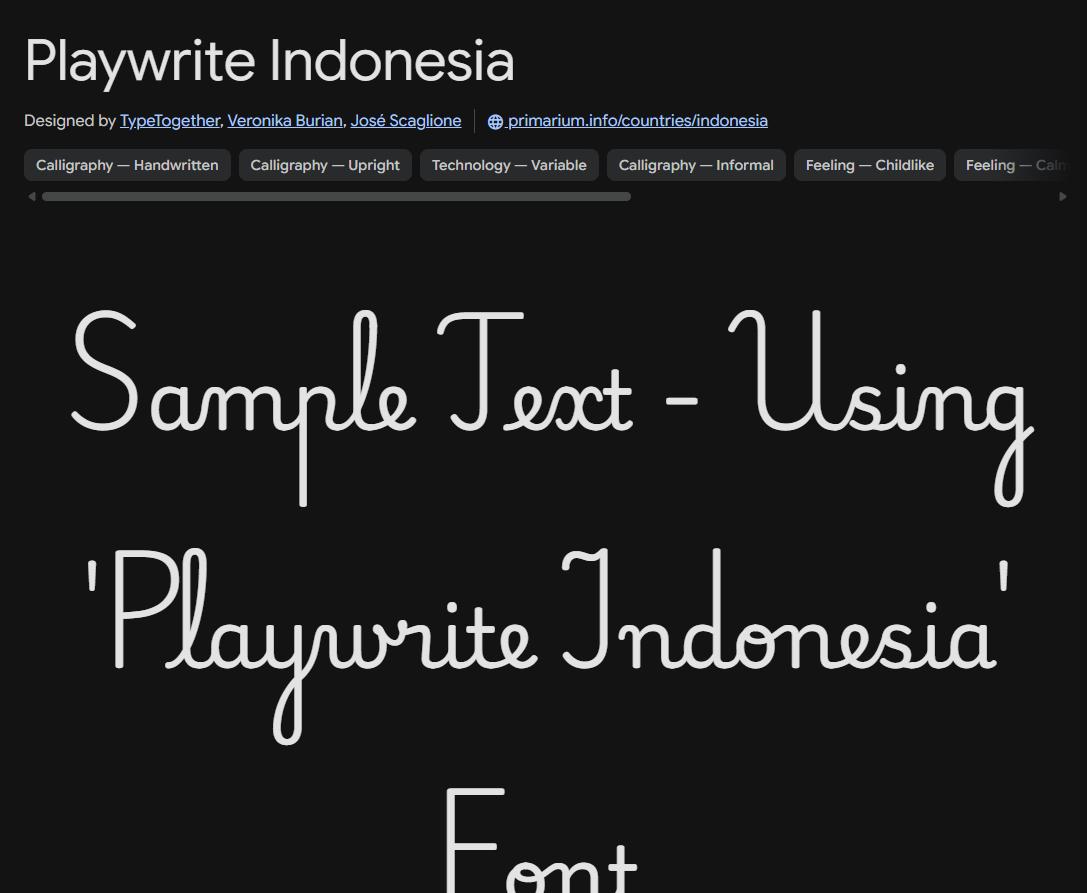
Engineered by the collaborative expertise of Veronika Burian and José Scaglione at TypeTogether, Playwrite Indonesia functions as a sophisticated pedagogical tool that translates regional handwriting models into a dynamic digital environment through a single-axis variable font architecture. This typeface leverages precise interpolation to maintain structural integrity across its stylistic range, ensuring that the idiosyncratic ligatures and humanist strokes characteristic of Indonesian primary education remain legible and authentic. By integrating advanced OpenType features with a streamlined axis for weight modulation, the design facilitates a seamless transition from manual script acquisition to high-resolution screen rendering, setting a technical benchmark for localized educational typography within the global type foundry landscape.
The Playwrite Indonesia font family represents a sophisticated intersection of pedagogical engineering and digital type design, utilizing Variable technology to bridge the gap between structured Upright Calligraphy and fluidly Handwritten expression. Engineered to align with specific regional educational standards, this Informal Calligraphy typeface achieves a unique semantic balance; its glyphs evoke a Calm, Happy, and Playful energy that remains inherently Childlike yet technically robust. By leveraging a dynamic OpenType framework, the font transitions seamlessly from a Loud and Rugged display presence to a more restrained, Vintage aesthetic, effectively digitizing the traditional ductus of Indonesian penmanship while maintaining a versatile, Upright posture suitable for modern educational interfaces.
While Playwrite Indonesia captures the specific pedagogical ductus of Indonesian primary education through its fluid stroke modulation and rhythmic cursive joins, it is fundamentally unsuitable for high-precision environments such as aeronautical instrumentation, clinical pathology reporting, or high-frequency trading interfaces. The typeface's variable axis, though offering stylistic flexibility, cannot mitigate the inherent legibility hurdles posed by its connected script architecture when subjected to rapid-fire optical recognition or low-resolution rasterization in dense data hierarchies. In sectors requiring the sterile, institutional gravity of a neo-grotesque, the subjective personality of TypeTogether's handwriting model introduces unnecessary cognitive friction, potentially obscuring critical numeric values or legal terminology that demands the absolute character isolation of a humanist or geometric sans-serif for optimal accessibility compliance.
Playwrite Indonesia is a school-based cursive typeface designed to mimic the specific handwriting styles taught within the Indonesian educational system. The typeface adheres to the Playwrite project's modular design framework, utilizing localized letterforms that prioritize join logic and fluid stroke consistency across varying glyph widths.
This font is generally not recommended for extensive body text as its cursive nature can lead to reader fatigue during prolonged engagement. From a legibility perspective, the high frequency of complex ligatures and rhythmic vertical fluctuations can significantly increase the cognitive load compared to traditional humanist sans-serifs.
It pairs most effectively with clean, geometric sans-serifs or sturdy slab serifs that provide a stable visual anchor against its organic flow. Establishing a distinct typographic contrast between the cursive strokes of Playwrite and the rigid x-height consistency of a font like Roboto or Montserrat enhances the overall information architecture.
Playwrite Indonesia is specifically engineered for primary school materials to help students learn and recognize standard cursive handwriting patterns used in their region. The font utilizes specific variable font axes to simulate handwriting development, ensuring that the character construction aligns with the pedagogic standards of the Indonesian Ministry of Education.
The font handles connections through a sophisticated system of contextual alternates that adjust the entry and exit strokes of each letter based on neighboring glyphs. By employing advanced OpenType GSUB lookups, the font dynamically calculates the connection points to maintain a seamless, hand-drawn aesthetic without requiring manual kerning adjustments.
Legibility tends to diminish at small sizes on mobile screens because the intricate cursive loops and thin stroke junctions can blur or disappear. The lack of high stroke contrast and the proximity of character terminals lead to a loss of optical clarity, particularly on displays with lower pixel density or non-retina resolutions.
The Playwrite Indonesia family typically focuses on a consistent stroke weight to replicate the look of a single pen or pencil tool. While it may lack a traditional range of weights from Thin to Black, the variable font technology allows for subtle weight adjustments along the wght axis to optimize rendering across different software rasterizers.
While highly expressive, it is better suited for artisanal, local, or youth-oriented brands rather than corporate or formal institutional identities. The informal personality of the typeface, characterized by its organic baseline, often conflicts with the rigid brand guidelines required for high-stakes financial or legal aesthetics.
Using this font in all-caps is generally discouraged as the script is designed for lowercase connections that lose their structural logic when capitalized. Since the glyphs are architected for cursive continuity, forcing uppercase characters eliminates the intended rhythmic flow and creates visual gaps that disrupt the typeface's native kerning tables.
The font is designed with a broad Latin character set that covers the standard orthographic requirements for the Indonesian language. Its character map includes the necessary glyphs and diacritics mandated by Latin-based orthography, though it does not natively support non-Latin regional scripts like Javanese or Balinese within the primary font file.